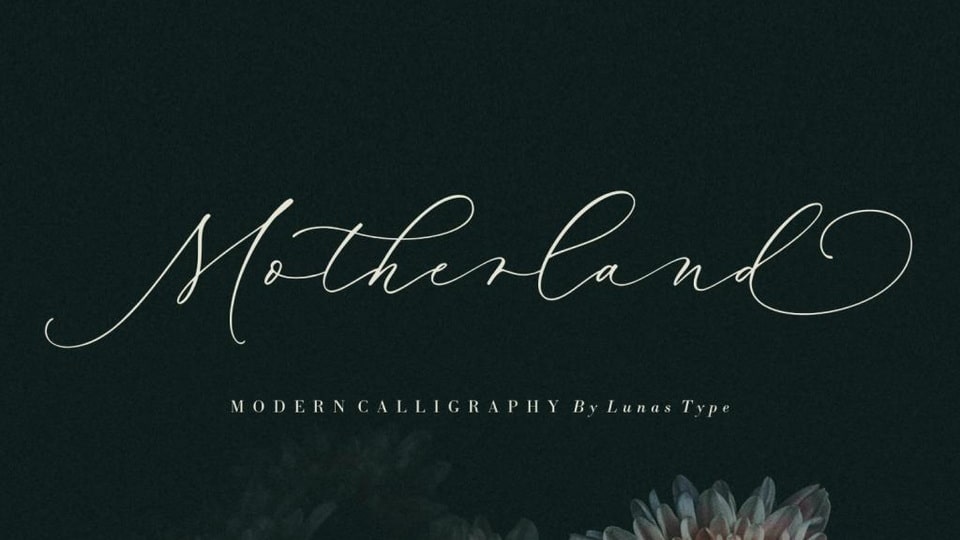
Download Motherland font, a modern and stylish calligraphy typeface. Motherland has a natural flow and unique shape for each letter.
Designer: Lunas Type